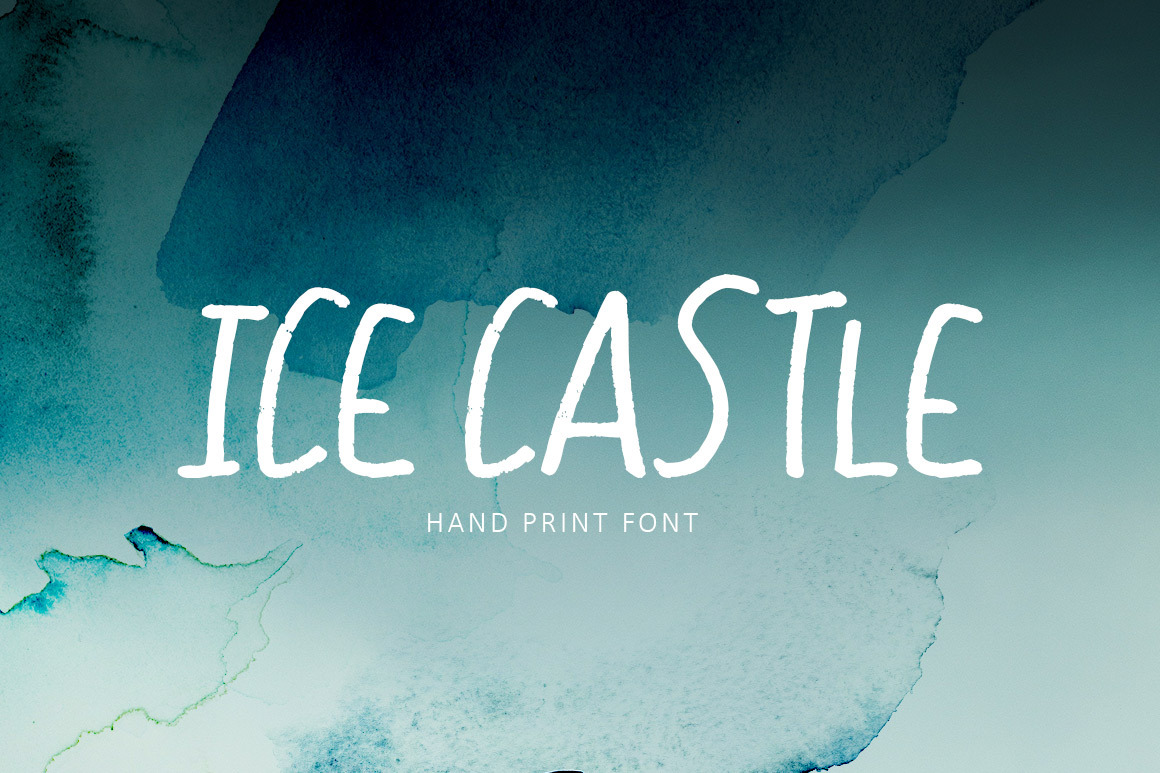
Ice Castle Display Font
Introducing Ice Castle all caps font.
Hand written in all uppercase, this font is awesome for quotes, logos, cards, invites, and so much more.
International characters included.